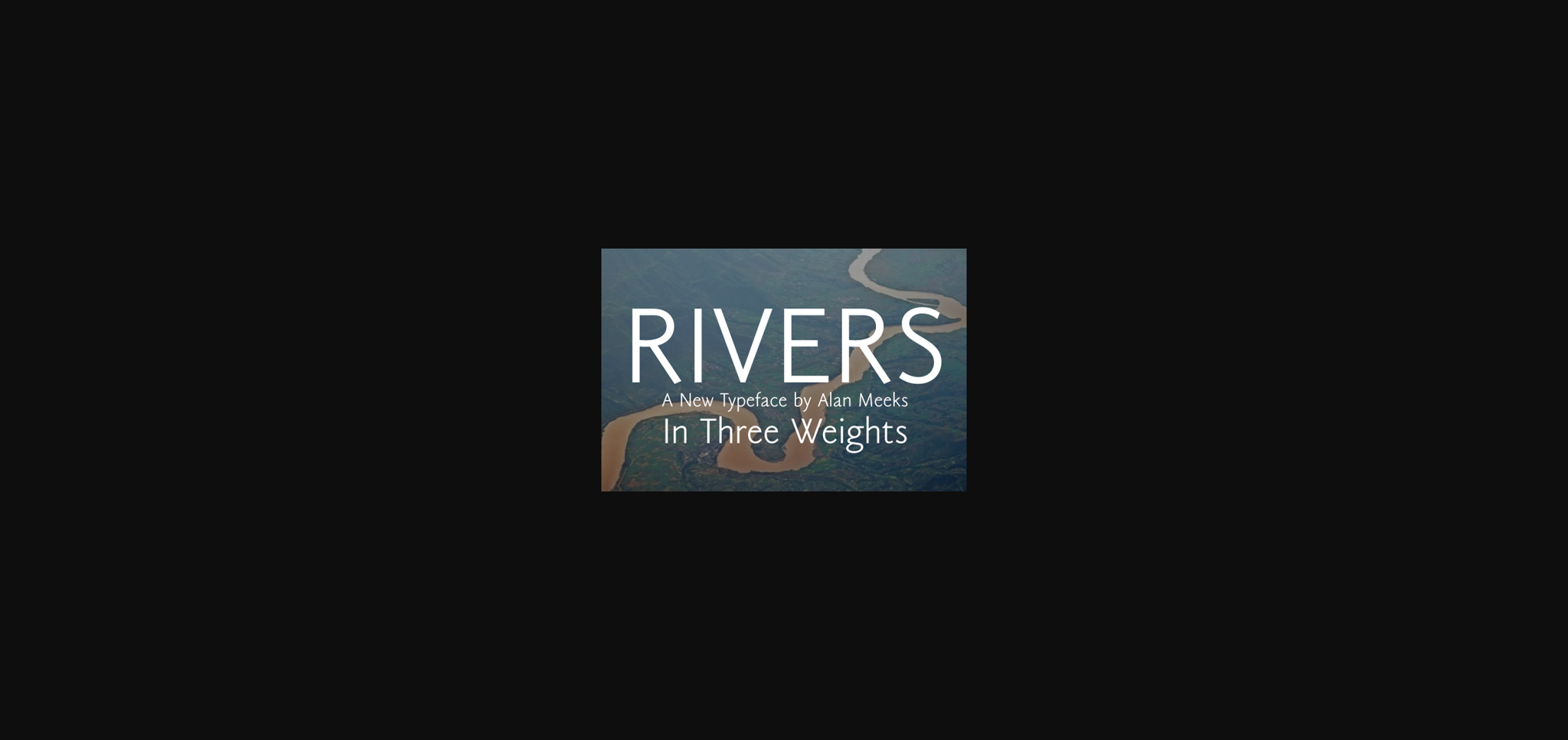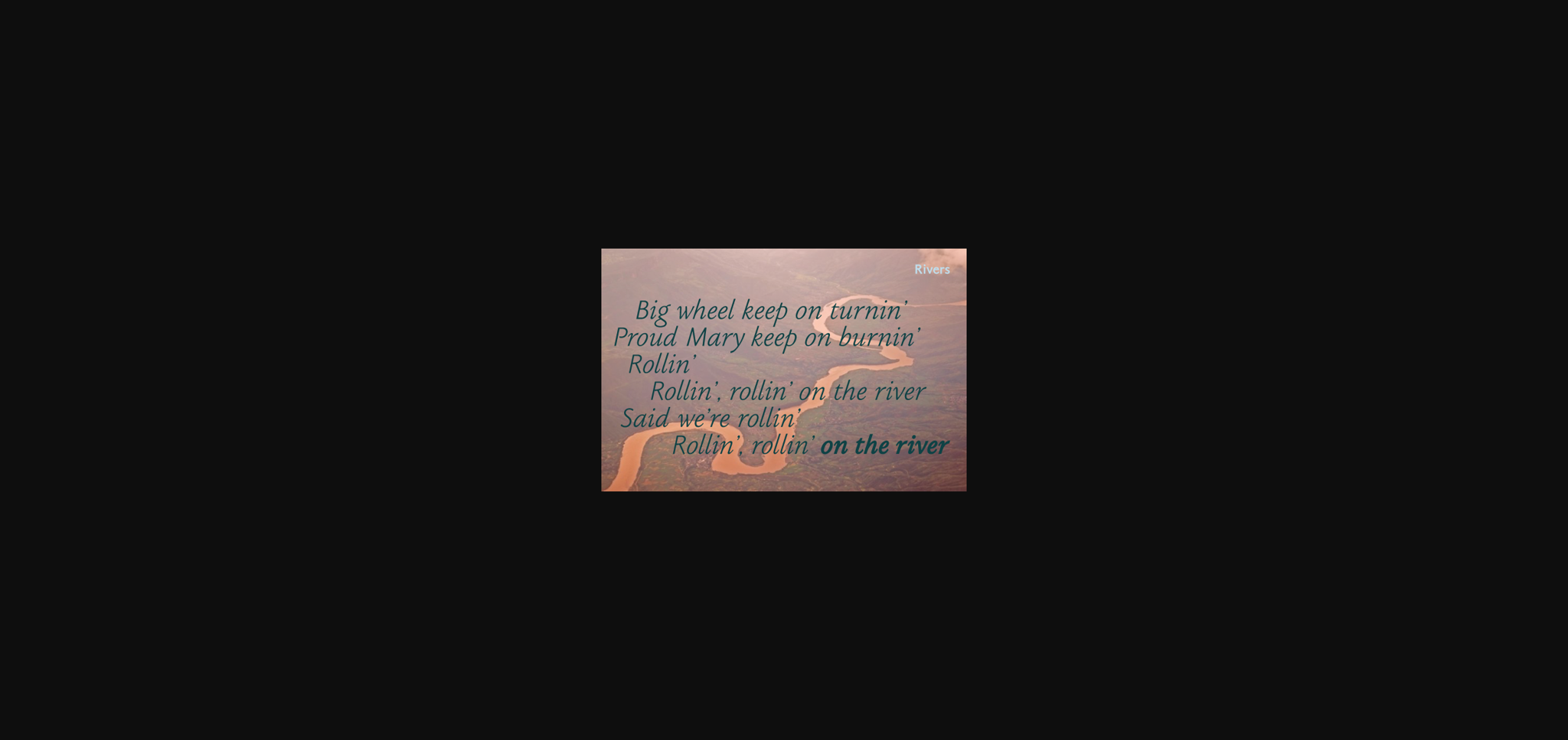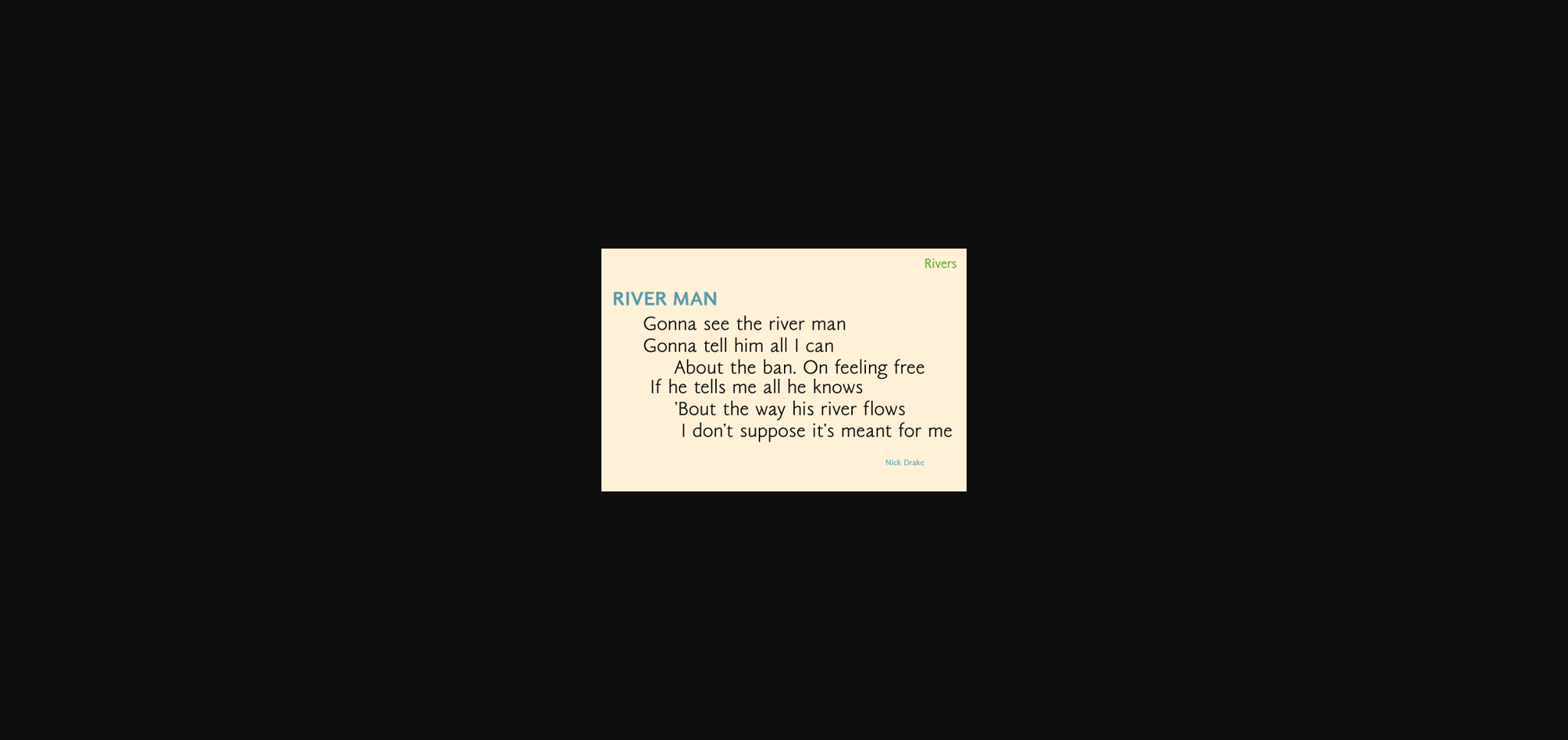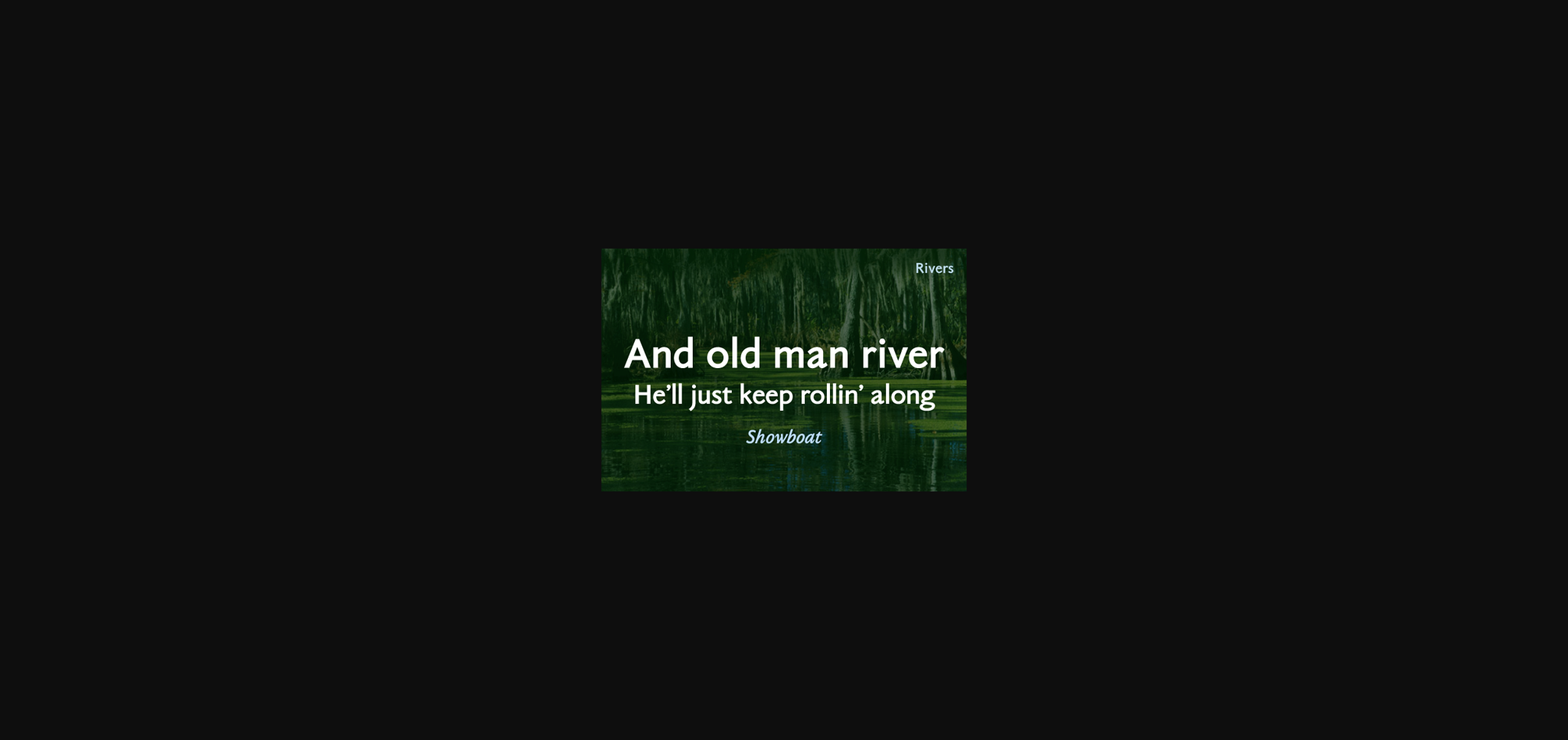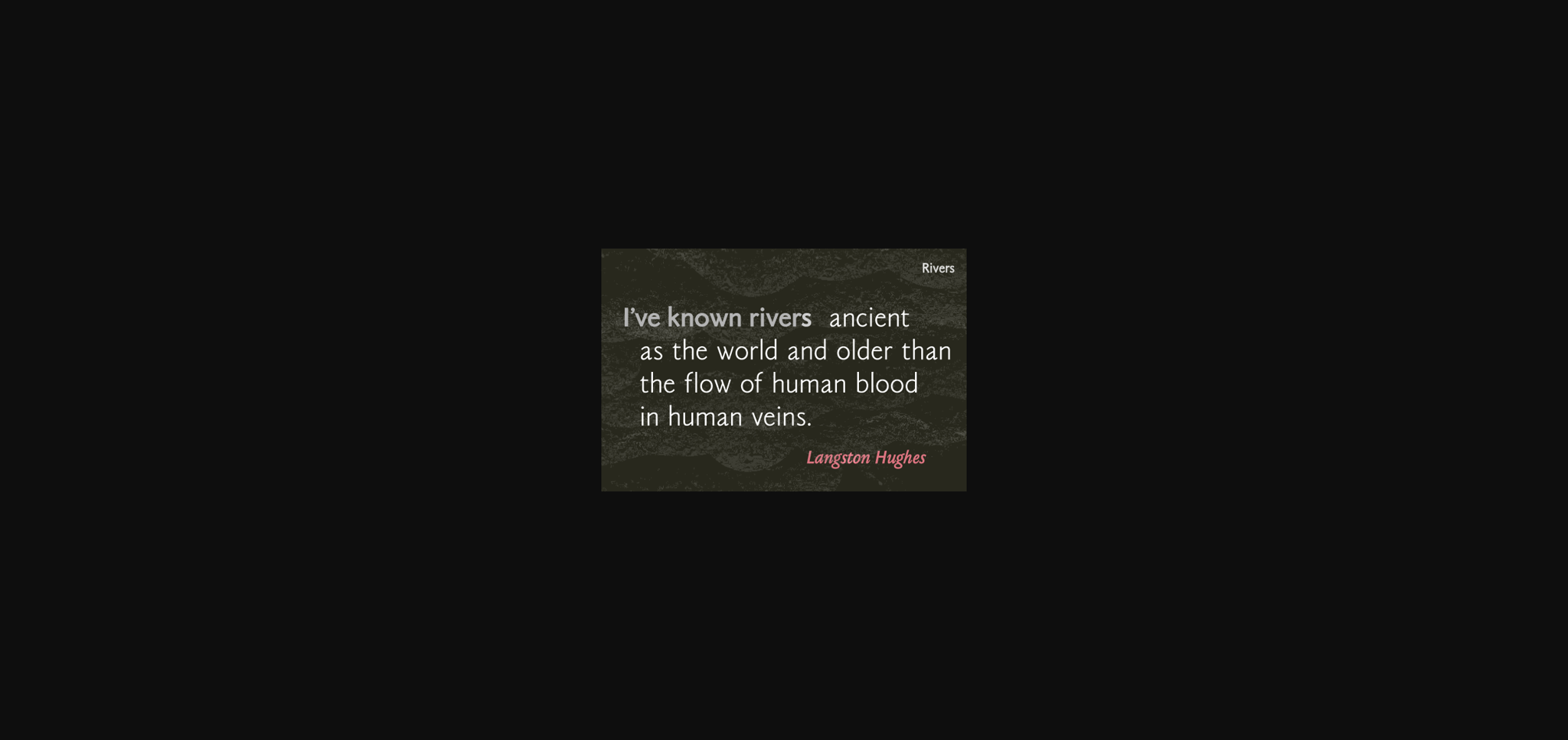
Rivers Sans Font
About Rivers Sans Font
Rivers is a classically designed Sans serif with the familiar comfortable style of the 60’s and 70’s but with a clean modern look and a set of script style Italics. Rivers comes in a range of three weights and matching italics, a full latin Pro font plus small numerals,
small caps and non ranging numerals. Rivers is excellent for both headline and small text and will create a mood which is contemporary yet nostalgic.